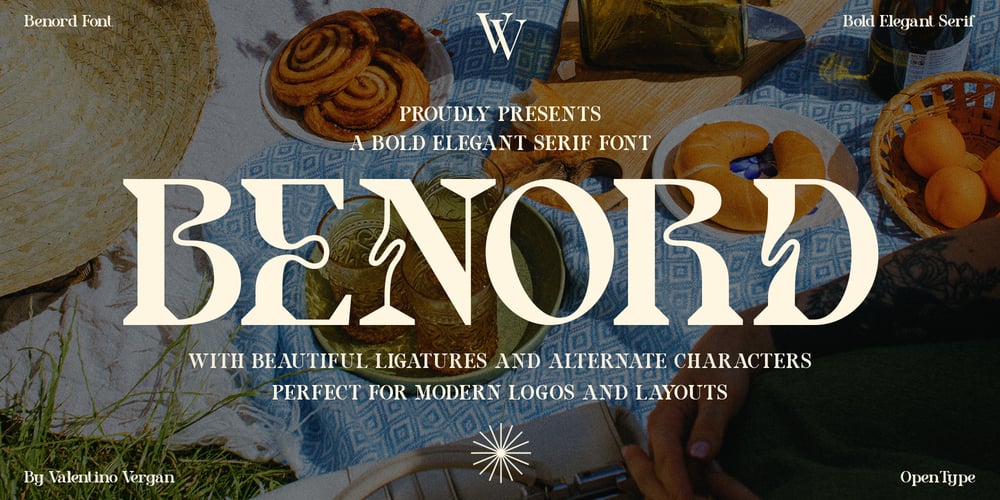
Benord Font Family was designed by Martin Katibi and published by Valentino Vergan. Benord contains 2 styles and family package options. Benord is a bold elegant modern serif, it comes with stylistic alternates and creative ligatures. The idea behind Benord was to modernise an old style serif for today’s design industry. The main aim was too creative a serif take has a nostalgic vintage feel with a modern twist. Benord is an ideal font for graphic designs and advertising agencies who are looking to create beautiful logos and designs. Benord was designed to look great in both large and small type settings, making it perfect for cover and layouts. With its great multilingual support, Benord can produce a large number of different languages.